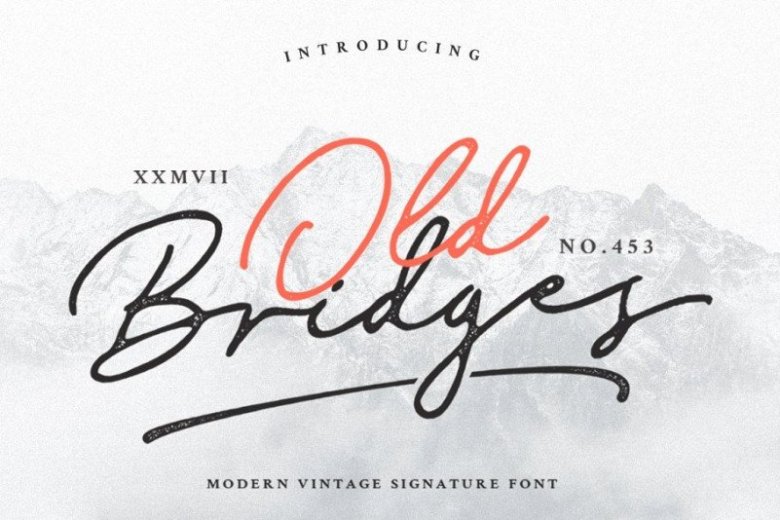
Old Bridges Signature Font
Old Bridges Font is a monoline signature font with an elegant style. It has good readability and is perfect for logos, invitations, wedding, signatures, Branding, clothing, headline, and much more! Old Bridges comes with ending swash alternate which will make your design more beautiful and elegant.